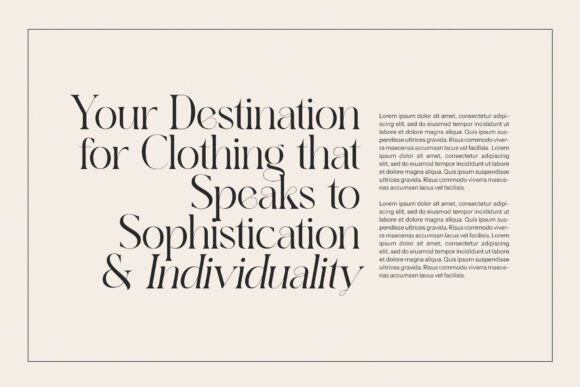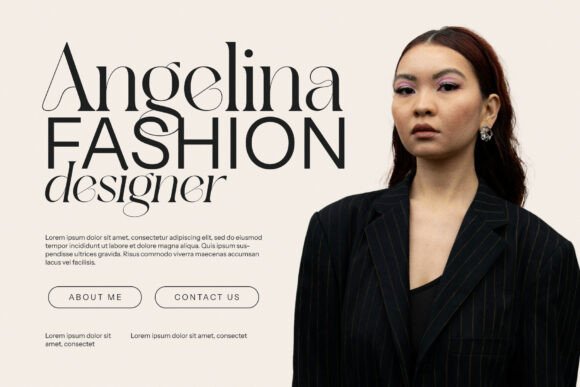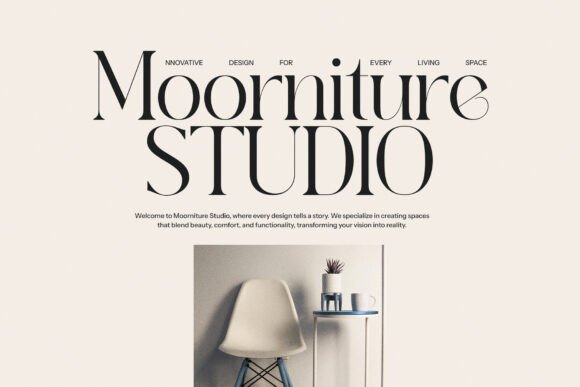
Introduction to Malkist Font
Malkist Modern Serif Font is a contemporary and sophisticated typeface that combines clean, sharp lines with classic serif details.
Designed with elegance in mind, this font offers a unique and eye-catching appearance that makes it perfect for a variety of design projects Whether you’re creating logos, branding materials, websites, magazines, advertisements, or product packaging, Malkist Modern Serif will elevate your designs with its refined and stylish character.
Key Features of Malkist Font
Why Choose Malkist Font?
Malkist Font offers exceptional quality and versatility, making it a valuable addition to your design toolkit. Whether you’re creating for personal projects or commercial use, Malkist Font delivers professional results.